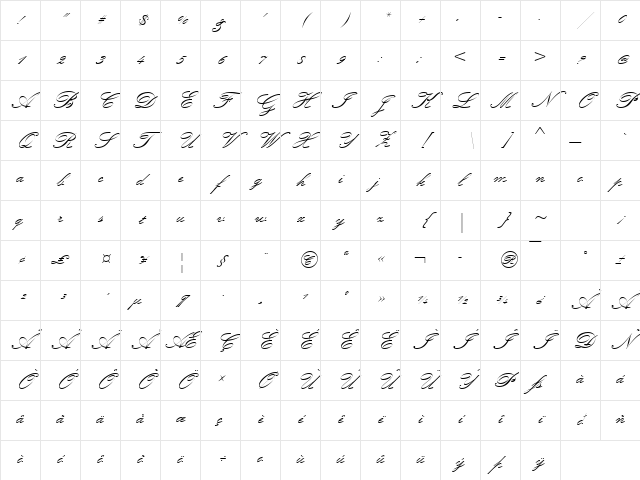
Kunstler Script Regular
Design Context for Kunstler Script
Kunstler Script flows with the natural rhythm of handwritten lettering, making it ideal for designs that call for warmth and personal expression.
Font Pairing: Combine Kunstler Script with a simple geometric sans for maximum contrast - the tension between flowing curves and clean structure is a classic typographic pairing.
Pro Tip: Use Kunstler Script for short runs of text - names, titles, or taglines. Extended body copy in script faces tires the eye quickly.